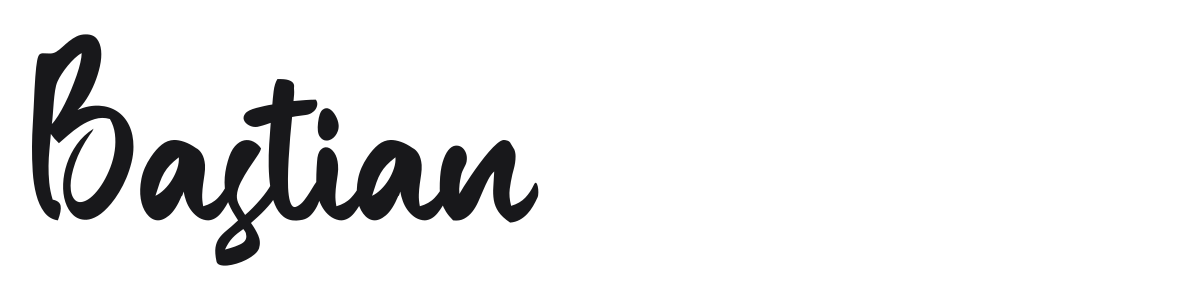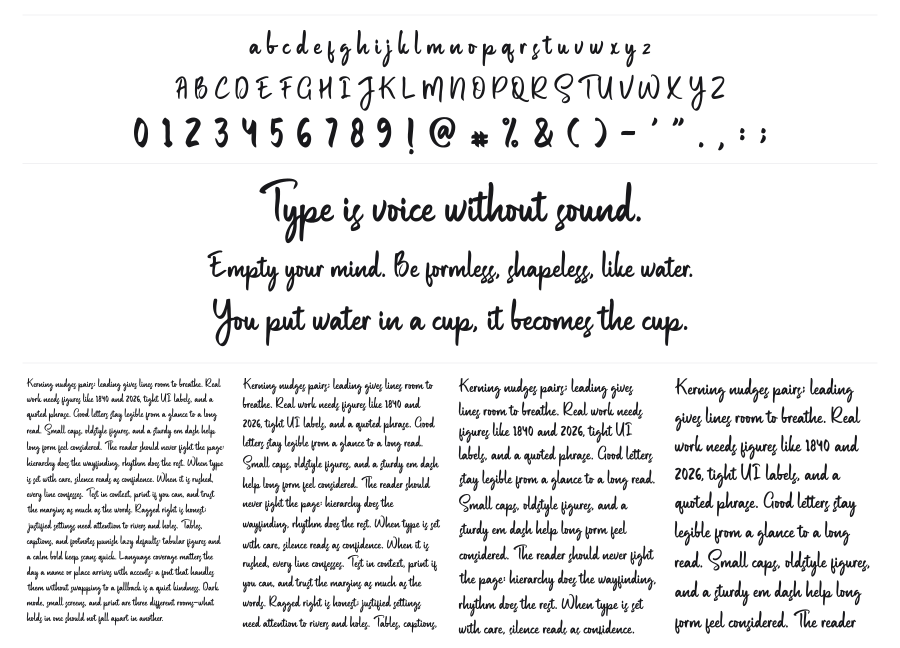
Bastian
Bastian is a bold, casual brush script with a relaxed hand-lettered feel and naturally flowing connections between characters. The low stroke contrast and rounded terminals keep it friendly and approachable rather than formal. It works well at large sizes for logos, packaging, and any project that wants a warm, handmade energy.